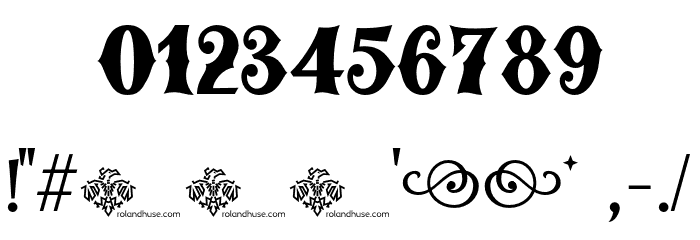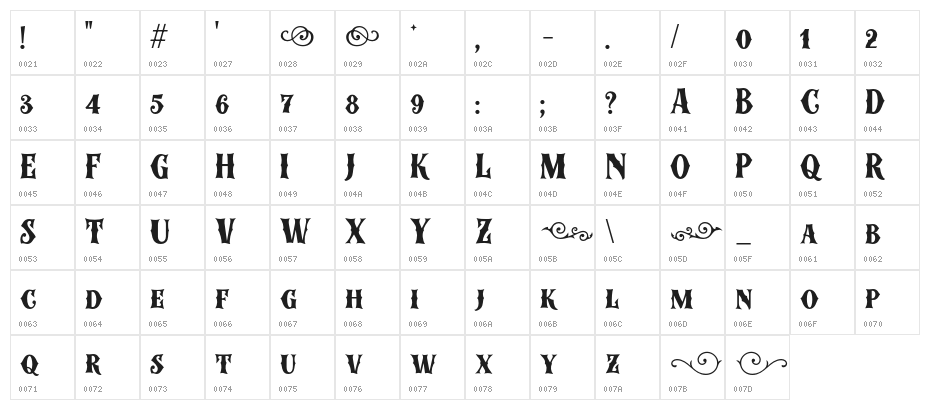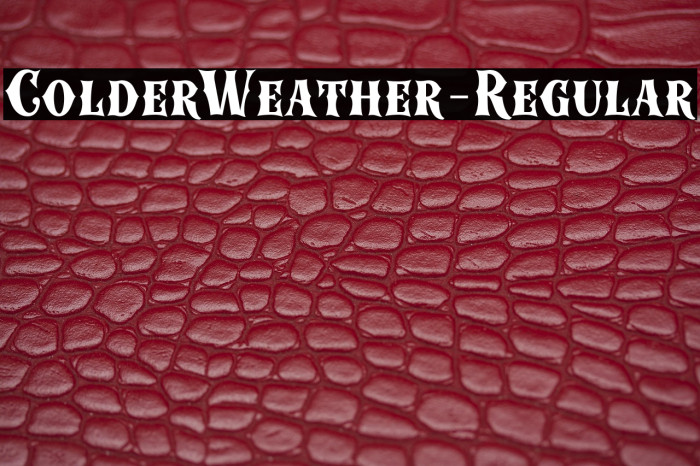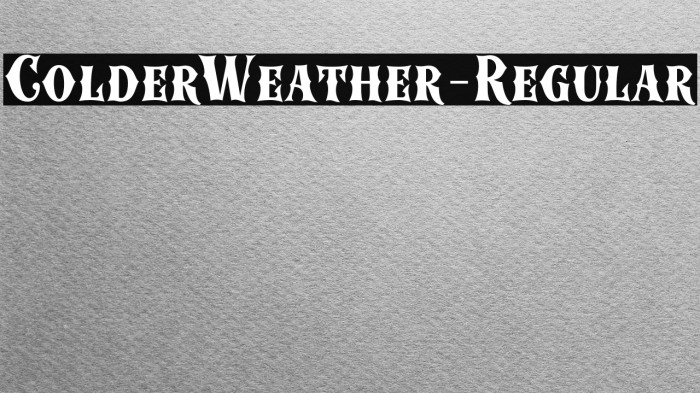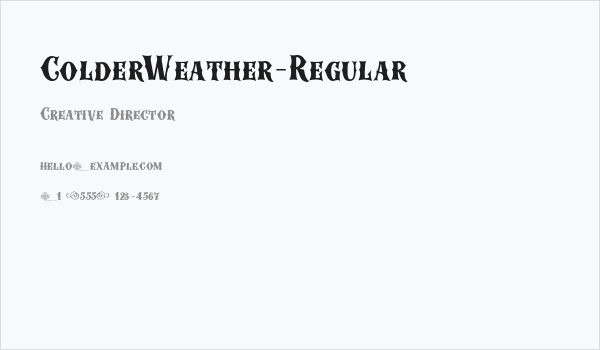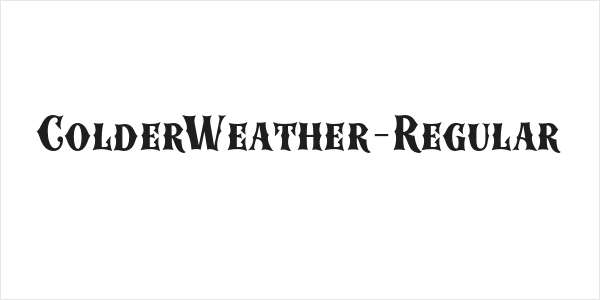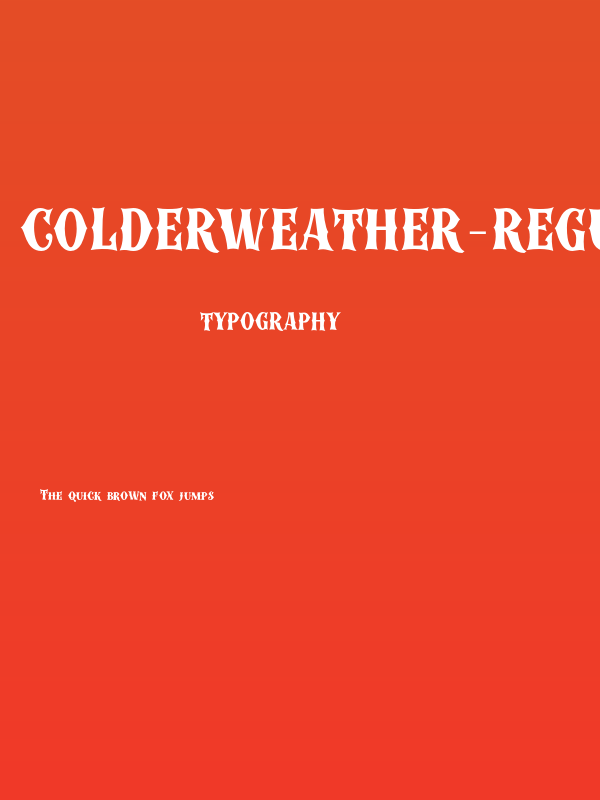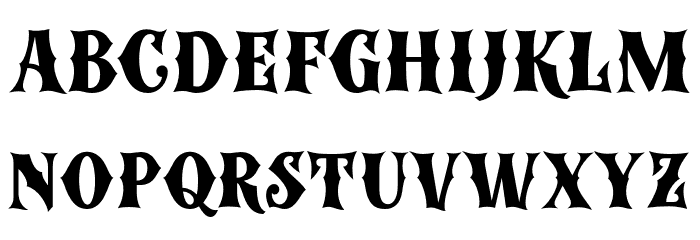
ColderWeather-Regular Font
ColderWeather-Regular Description
This font features a bold and dramatic style with sharp, angular serifs and a strong presence. The uppercase letters are particularly striking, with a gothic influence that gives them a unique, edgy appearance. The lowercase letters maintain the same boldness, ensuring consistency across text. Numbers are equally bold, making them stand out in any design. Special characters are creatively designed, adding a decorative touch that complements the overall aesthetic. This font is perfect for projects that require a strong, impactful visual statement.
| Overall Style | Gothic, Decorative |
| Proposed Projects | Ideal for posters, album covers, branding, and any design needing a bold, gothic touch. |